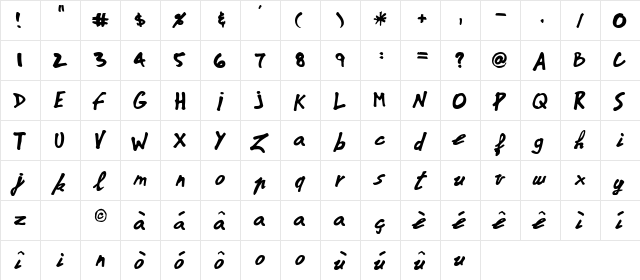
NoHandscript Regular
Design Context for NoHandscript Typeface
NoHandscript flows with the natural rhythm of handwritten lettering, making it ideal for designs that call for warmth and personal expression.
Font Pairing: Combine NoHandscript with a simple geometric sans for maximum contrast — the tension between flowing curves and clean structure is a classic typographic pairing.
Pro Tip: Pair NoHandscript with a clean sans-serif for supporting text. The contrast between fluid script and geometric structure creates an elegant typographic hierarchy.